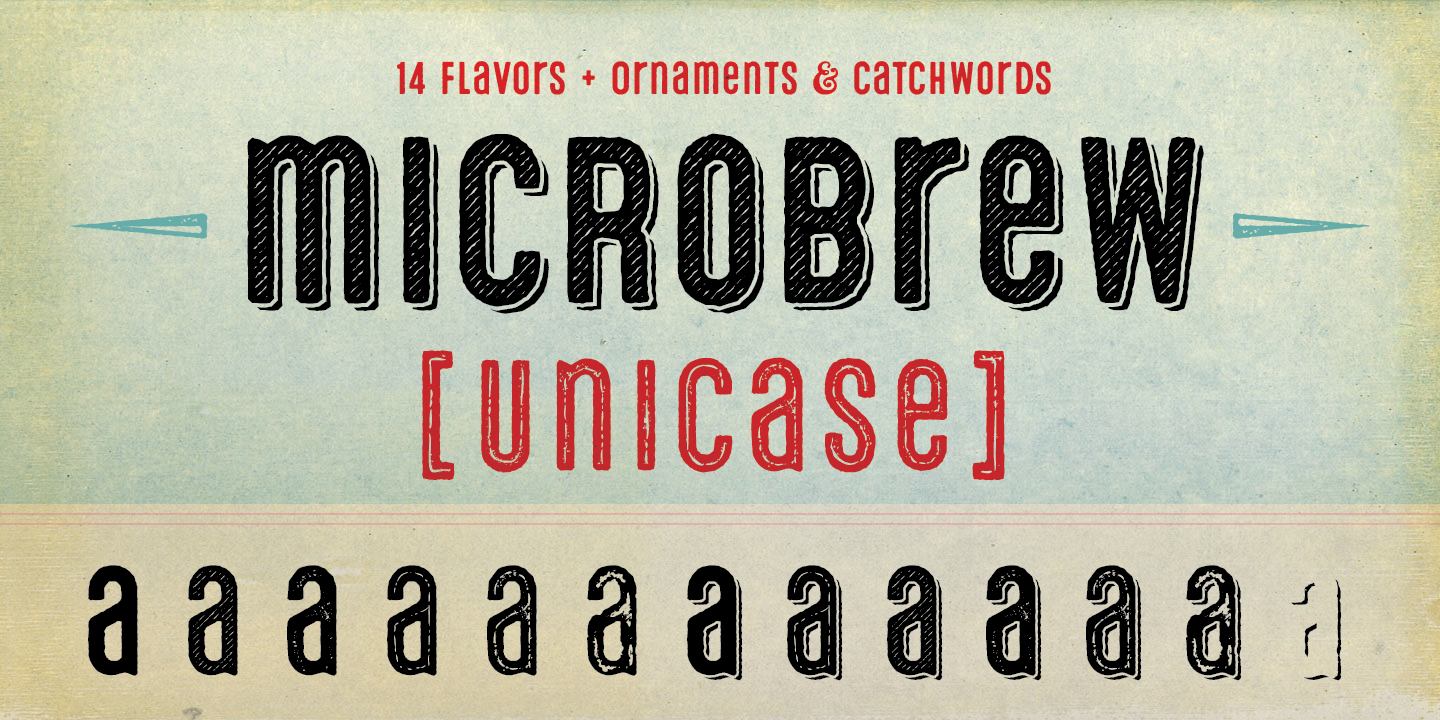
Where Can You Use Microbrew Unicase Font?
This robust font pours perfection into:
Craft beer branding (can designs, tap handles, brewery logos)
Brewpub merchandise (t-shirts, coasters, pint glasses)
Food truck graphics (artisanal burger joints, BBQ stands)
Industrial-inspired designs (workshop signage, tool branding)
Why Is Microbrew Unicase Font Exciting?
This font delivers hoppy typographic character with:
Unicase design merging uppercase strength with lowercase warmth
Condensed proportions perfect for tight label spaces
Subtle texture mimicking frothy beer head
Alternate glyphs for custom barrel-aged looks
Microbrew Unicase Font Family
The complete brewmaster's selection includes:
Microbrew Regular (base hearty style)
Microbrew Bold (imperial stout strength)
Microbrew Outline (sessionable hollow version)
Microbrew Hops (special hop-inspired alternates)